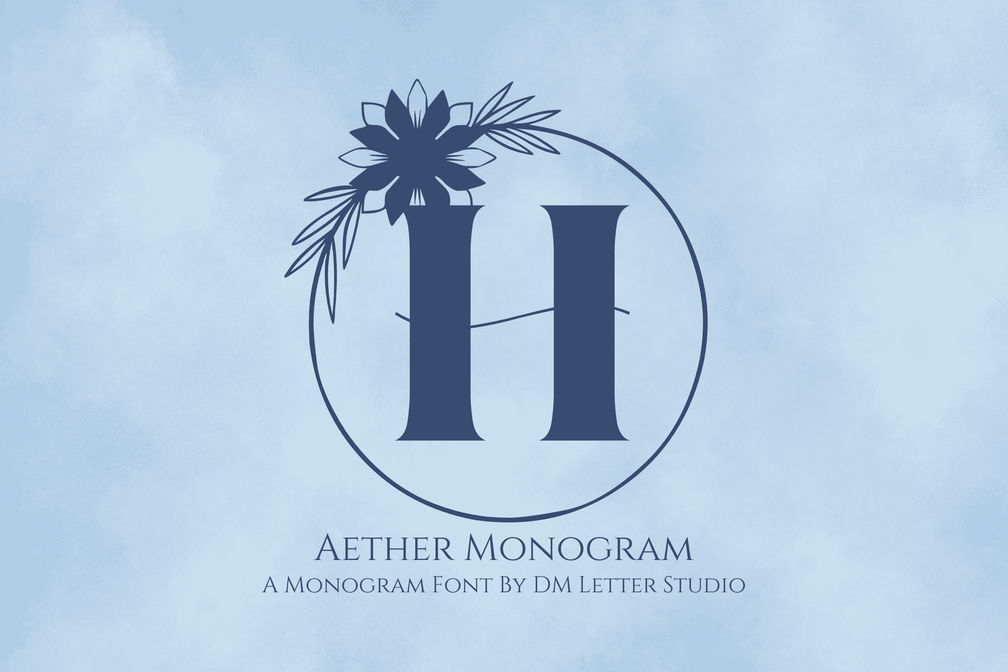
Aether Monogram
Aether Monogram is a beautifully crafted typeface designed for creating sophisticated and luxurious monograms. With its graceful letterforms and refined details, this font is perfect for wedding invitations, luxury branding, boutique logos, and high-end stationery. Its timeless aesthetic makes it an excellent choice for both modern and classic designs.
• Elegant Monogram Style: Designed for decorative initials with a luxurious and artistic touch.
• Perfect for Wedding & Luxury Branding: Ideal for invitations, boutique logos, personalized gifts, and elegant stationery.
• Timeless & Versatile: Suitable for classic, vintage, and contemporary designs.